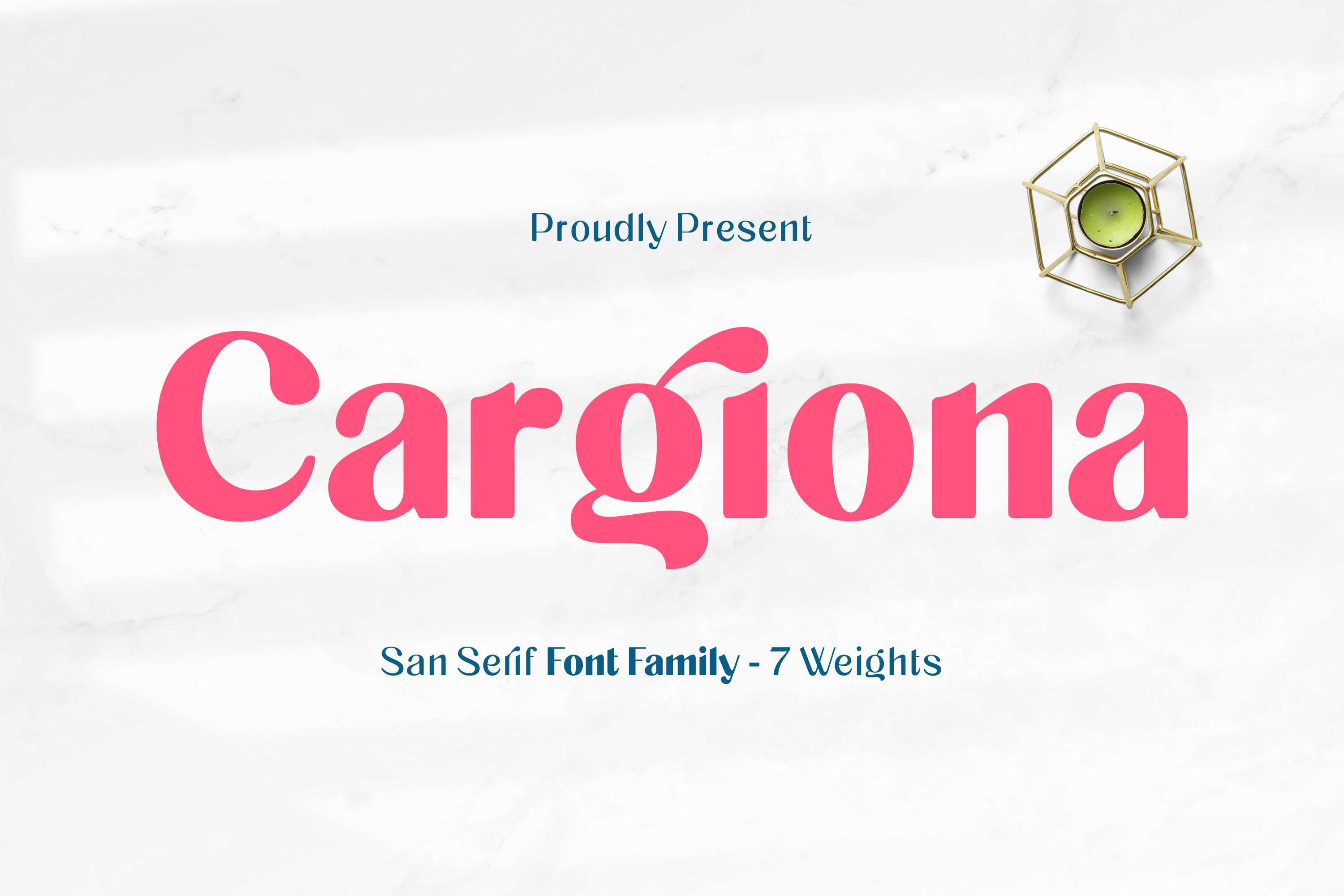
Cargiona - Sans Serif Font Family
Cargiona is a very nice font with a soft and confident impression, modern with a clean touch. Cargiona family includes both lowercase and uppercase letters with 7 choices of font thickness from the lightest weights to black weight. Cargiona suitable for large amounts of text to the heaviest weights, intended for headlines. With weights ranging from light to black, there are a variety of applications that the fonts can be used for print, web, branding, logo, advertising, magazines, products, packaging, labels, etc.